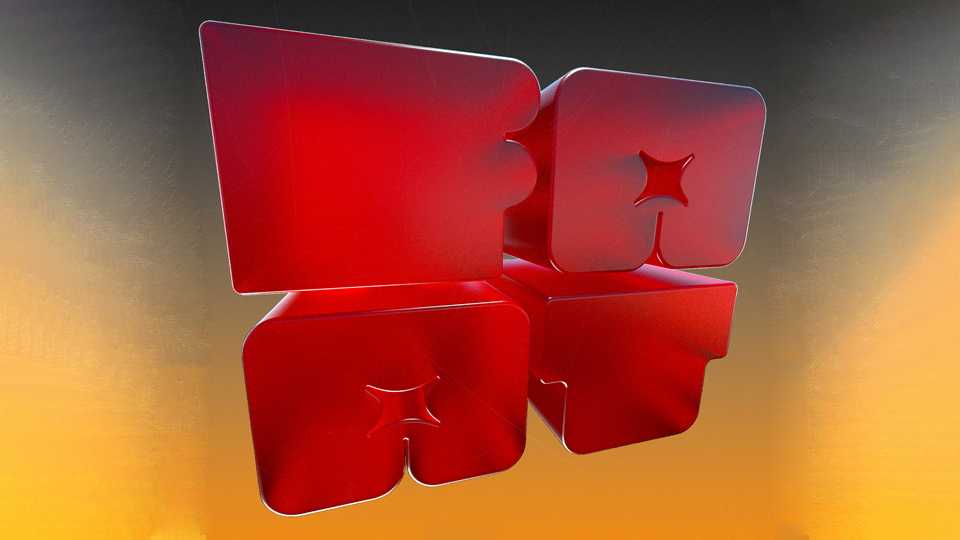
Download FAAT font, a fat, black and robust display typeface with a friendly character. FAAT font designed specifically for display use, headlines, posters and similar applications.